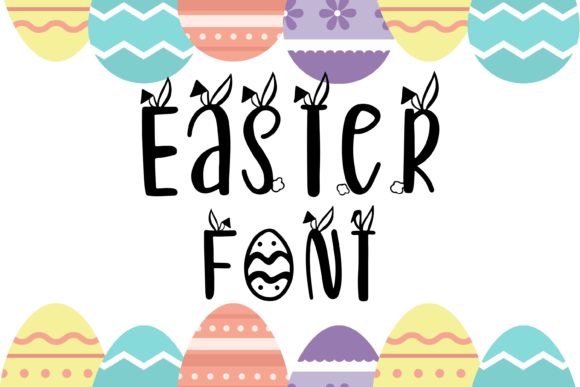
Easter Font: Add a Touch of Joy and Whimsy to Your Designs
Easter is a time of renewal, hope, and joy, and what better way to capture that spirit than with a delightful Easter font? If you’re a designer, crafter, or DIY enthusiast looking for a playful and decorative font to add a touch of whimsy to your projects, you’ve come to the right place. In this article, we’ll dive into the world of Easter fonts, with a special focus on a cute and playful decorative font that’s perfect for children’s activities, school projects, and more.
Introducing Easter Font: A Cute and Playful Decorative Font
Easter Font is a charming and authentic font that’s designed to bring a smile to your face. Its playful and decorative style embodies the joy and excitement of the Easter season, making it the perfect choice for any project that needs a touch of fun and personality. Whether you’re creating Easter-themed crafts, designing activity sheets for kids, or working on a school project, this font is sure to delight.
Key Features of Easter Font
• Playful and decorative style: Easter Font features a unique and eye-catching design that’s perfect for adding a touch of whimsy to your projects.
• Perfect for kids’ activities and school projects: The font’s playful and child-friendly design makes it an ideal choice for Easter-themed crafts, activity sheets, and school projects.
• Authentic and joyful feel: Easter Font captures the spirit of the Easter season, conveying a sense of joy, hope, and renewal.
Uses for Easter Font
Easter Font is a versatile font that can be used in a variety of creative projects. Here are some ideas to get you started:
• Easter-themed crafts: Use Easter Font to add a touch of personality to your Easter-themed crafts, such as Easter egg decorations, Easter baskets, and more.
• Kids’ activity sheets: Create fun and engaging activity sheets for kids, such as Easter-themed coloring pages, word searches, and mazes.
• School projects: Use Easter Font to add a touch of creativity to school projects, such as presentations, posters, and reports.
• Social media graphics: Create eye-catching social media graphics, such as Easter-themed Facebook posts, Instagram stories, and Twitter headers.
Tips for Using Easter Font
Here are some tips for getting the most out of Easter Font:
• Experiment with colors: Easter Font looks great in bright, bold colors, so don’t be afraid to experiment with different hues and combinations.
• Mix and match with other fonts: Easter Font pairs well with other playful fonts, so try mixing and matching to create a unique look.
• Use it sparingly: Easter Font is a decorative font, so use it sparingly to add emphasis and personality to your designs.
Easter Font is a delightful and playful decorative font that’s perfect for adding a touch of joy and whimsy to your designs. With its authentic and child-friendly design, it’s an ideal choice for kids’ activities, school projects, and Easter-themed crafts. Whether you’re a designer, crafter, or DIY enthusiast, Easter Font is sure to bring a smile to your face and inspire your creativity.